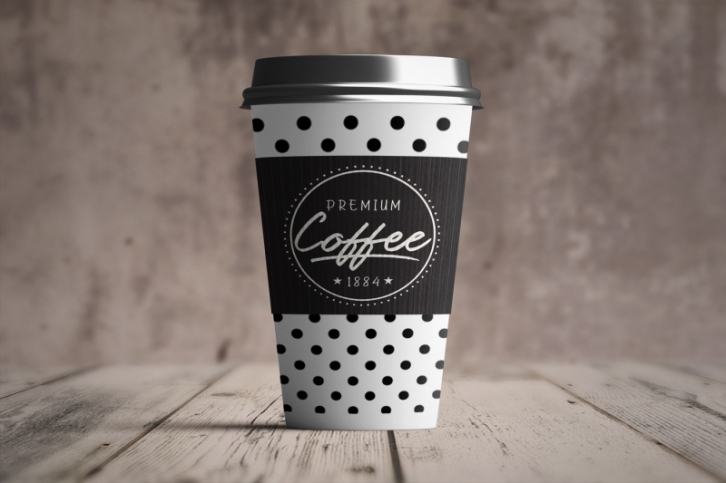
Ringtown -- A handwritten script font containing upper & lowercase characters, numerals and a large range of punctuation.
Ringtown Alt 1– the second version of Ringtown, with a completely new set of both lower and uppercase characters.
Ringtown Alt 2– the thirth version of Ringtown, with a completely new set of both lower and uppercase characters.
Ringtown Swash -- A set of 36 hand-drawn swashes, with cool touch to underline you’re Ringtown text.
Ringtown Marker -- A Marker style font script containing upper & lowercase characters, numerals and a large range of punctuation.